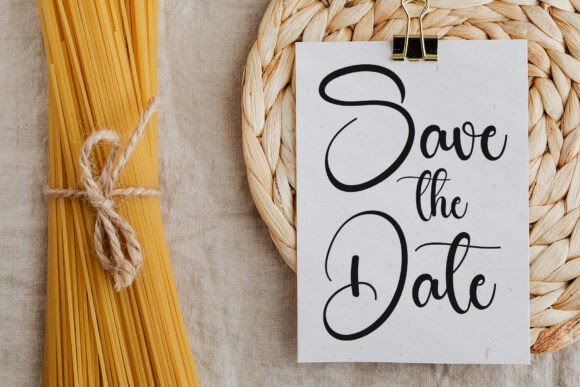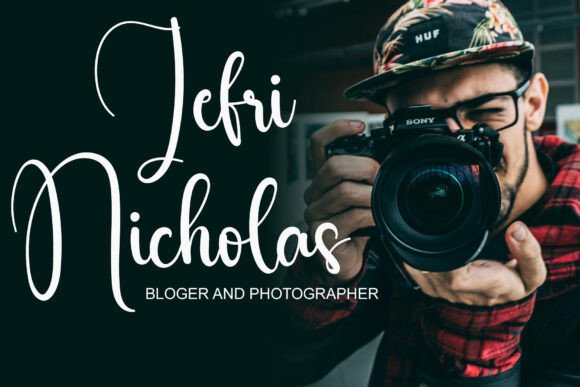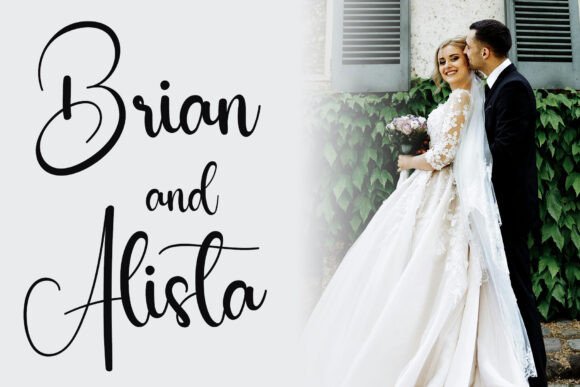
Brides Vintage Font
Brides Vintage – A Sweet & Elegant Script Font Meet Brides Vintage – a whimsically charming handwritten script font that blends playfulness with refined elegance. Designed with smooth, flowing strokes and a touch of warmth, this Elegant Script Font is perfect for branding, invitations, logos, and any design craving a cozy yet sophisticated vibe.Whether you’re designing a dessert menu, a heartfelt greeting card, or a chic logo, Brides Vintage adds a dash of sweetness and elegance to every project. Let your creativity rise with this irresistible script handwriting font!